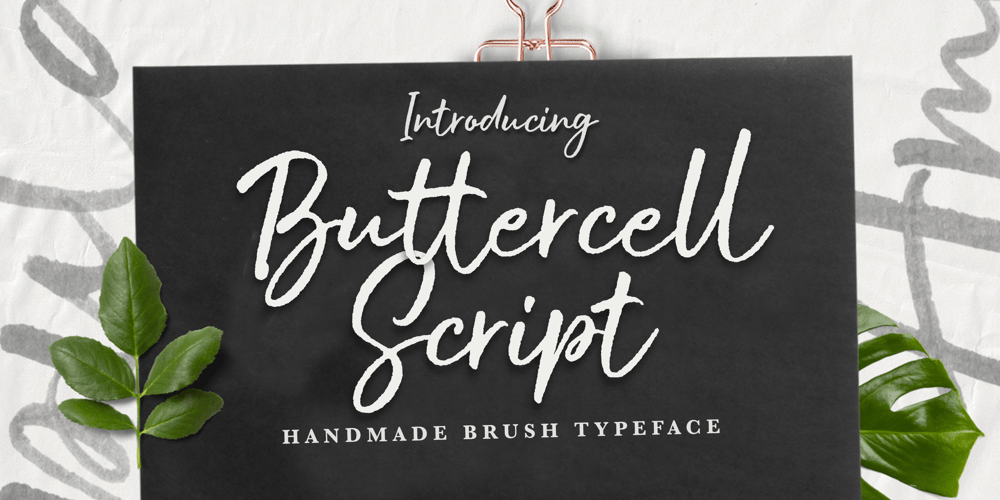
Buttercell Script Font Family was designed by Aliv Pandu, Hamam Jauhari and published by Wacaksara co. Buttercell Script contains 2 styles and family package options. Buttercell Script is a hand brush script available in clean and rough edge versions. This font is great for your next creative project such as Logotype, printed quotes, invitations, cards, product packaging, headers, Letterhead, Poster, Apparel Design, Label, and etc.